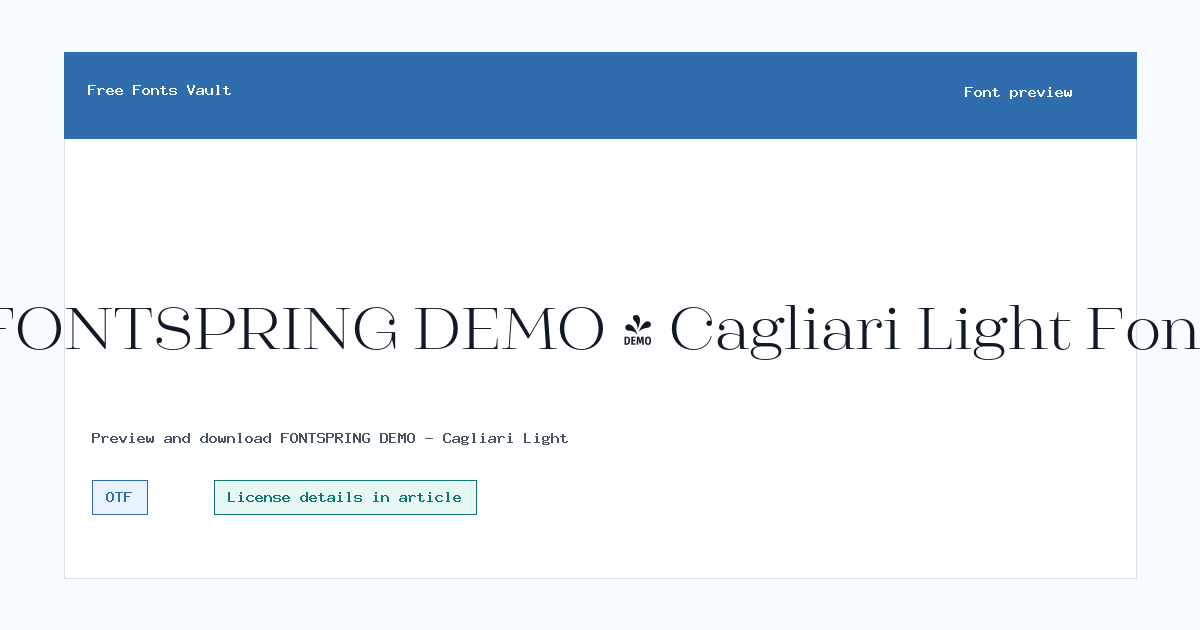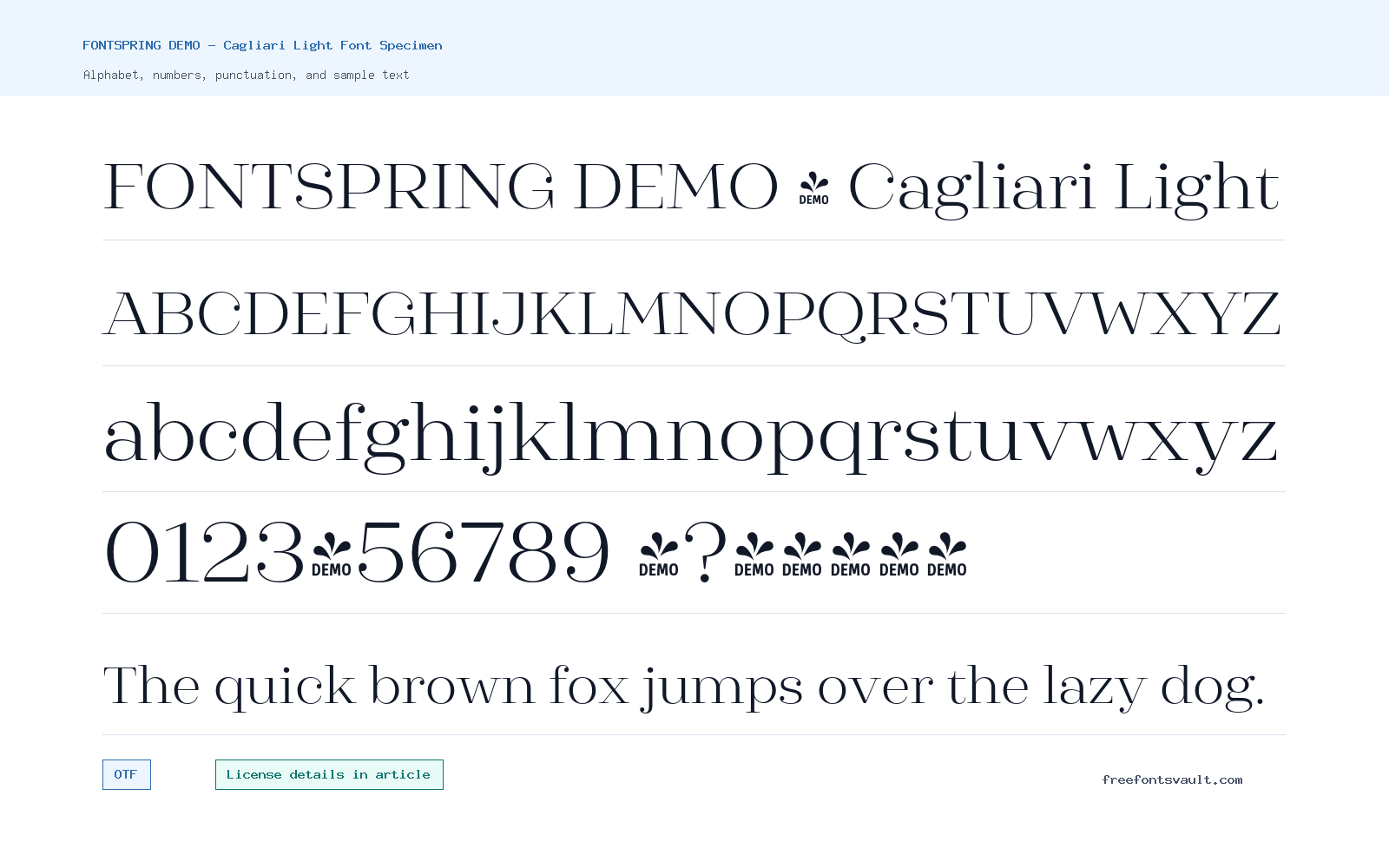
FONTSPRING DEMO - Cagliari Light
FONTSPRING DEMO – Cagliari Light font.
FONTSPRING DEMO – Cagliari Light is a light-weight OTF font for testing elegant titles, refined headings, invitations, and branding drafts. Because it is marked as a demo, treat it as a preview font until you confirm the full license terms from the official source.
About FONTSPRING DEMO – Cagliari Light Font
Cagliari Light is listed with a 300 weight, so its personality comes from restraint rather than force. It can look polished in larger headings, short editorial titles, wedding or event text, beauty branding drafts, and layouts where thin strokes help the design feel calm and open.
Light fonts need careful testing. They may look crisp in a large preview but become faint at small sizes, on low-contrast backgrounds, or over busy images. Try your actual title, brand name, numbers, and punctuation in the preview, then check whether the text still holds up on mobile screens.
- Light 300 weight for refined headings and elegant display text
- Normal style suited to short phrases and title treatments
- Best tested at larger sizes with strong contrast
- Elegant headings and editorial title tests
- Invitations, event graphics, and refined branding drafts
- Beauty, fashion, lifestyle, and portfolio mockups
- Short display phrases that need a light typographic tone
- Evaluating whether the licensed Cagliari family fits a project
Use Cagliari Light where a lighter voice supports the design. Increase contrast, avoid tiny sizes, and give the text enough space. For body copy or long descriptions, pair it with a more robust reading font and keep Cagliari Light for titles or accents.
What weight is Cagliari Light?
The listed weight is 300, which is a light weight.